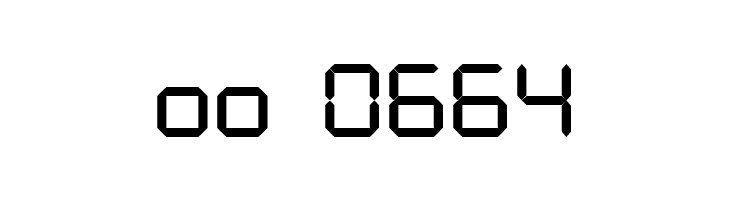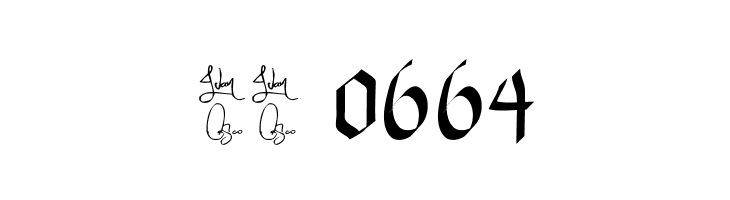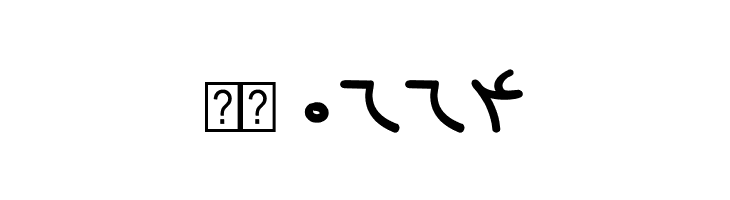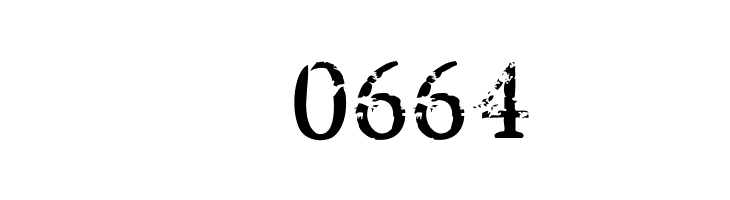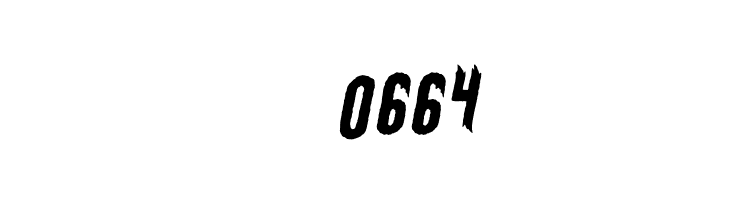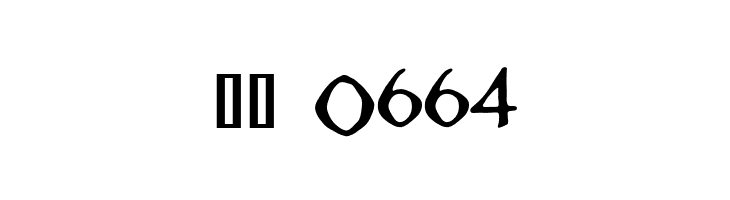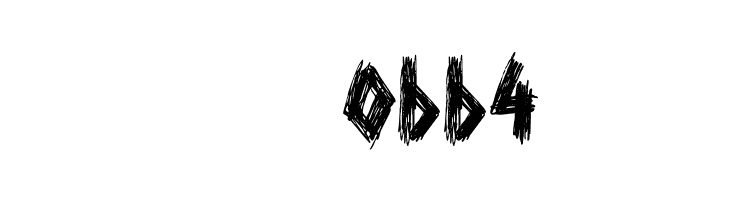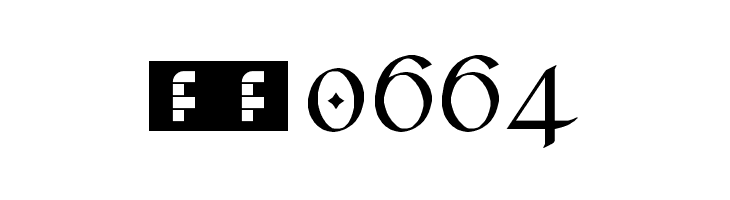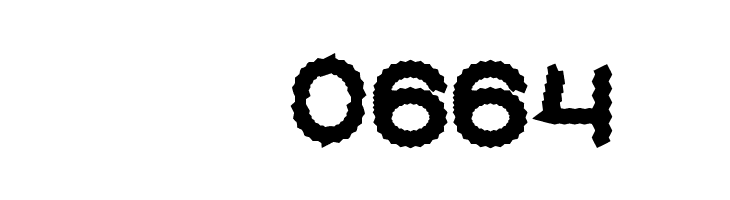
A playful font with characters inside friendly ghost shapes, perfect for whimsical designs.
A decorative font with characters on scrolls, offering a vintage and elegant style.
A bold, Gothic-style font with intricate, high-contrast letterforms.
A decorative, angular font with a gothic, spider web-inspired design.
Decorative font with travel-themed icons.
A detailed illustration of 1950s American storefronts, capturing vintage charm.
A whimsical, decorative font featuring picnic and party-themed illustrations.
A decorative, vintage-inspired font with theatrical elements and bold, eye-catching letters.
A bold, jagged, and italicized font with a fierce, energetic style.
A bold, edgy font with a gothic, hand-drawn style.
A jagged, edgy font with a chainsaw blade aesthetic, perfect for bold designs.
A rugged, hand-drawn font with bold, textured characters and an adventurous feel.
A bold, decorative font with a Western flair, ideal for headlines and themed designs.
A bold, horror-themed font with a dripping effect.
A bold, 3D font with a strong, dynamic presence and a superhero-inspired style.
A bold blackletter font with a gothic, medieval style.
A bold, horror-themed font with a dripping effect for a spooky aesthetic.
A jagged, ice-inspired font with a playful and bold design.
A geometric, angular font representing a fictional alien language.
A bold, decorative font with a vintage, industrial style.
A bold, shadowed font with gothic and spooky elements, perfect for Halloween themes.
A whimsical, decorative font with swirling embellishments and a hand-drawn feel.
A bold, distressed font with a grungy, hand-crafted appearance.
A futuristic, geometric font with interconnected lines and a sleek design.
Whimsical, mask-themed decorative font with bold, high-contrast illustrations.
An intricate, decorative font inspired by ancient glyphs with detailed line work.
Geometric, decorative typeface with dot accents and a sci-fi feel.